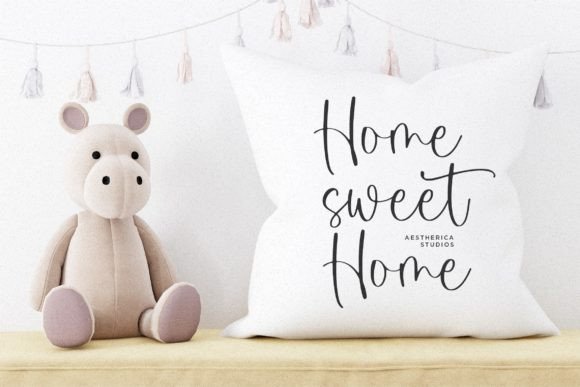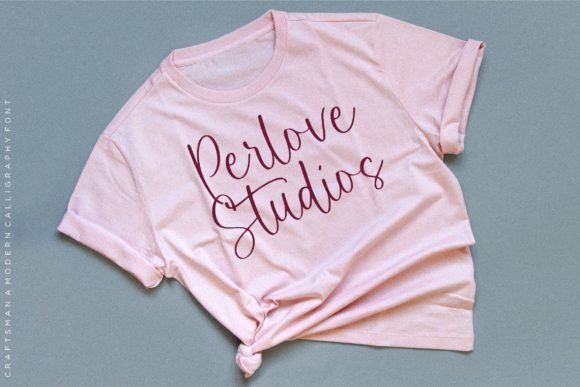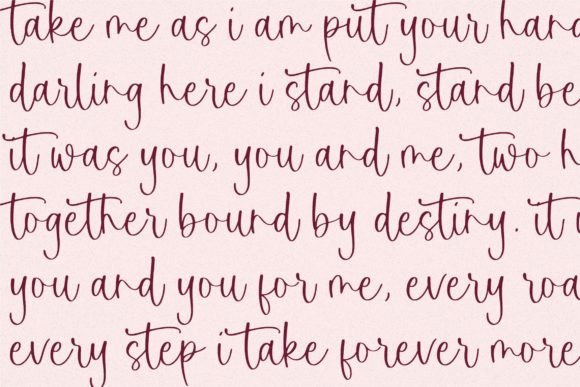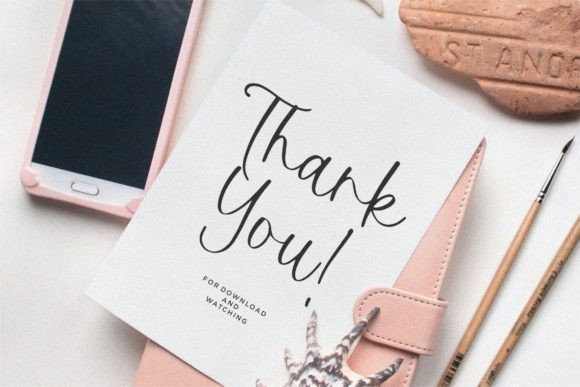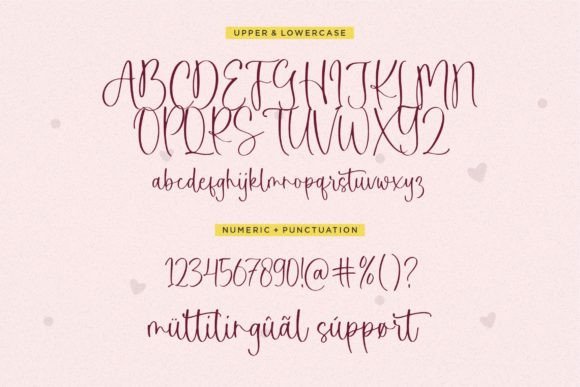
Craftsman Font: Elevate Your Designs with a Modern Handwritten Touch
In the world of typography, fonts play a crucial role in conveying messages, expressing emotions, and creating a lasting impression. For designers, crafters, and DIY enthusiasts, finding the perfect font can be a daunting task. However, if you’re looking for a modern handwritten font that can elevate your designs, look no further than Craftsman Font. In this article, we’ll explore the features, benefits, and uses of Craftsman Font, and why it’s becoming a favorite among designers and crafters.
What is Craftsman Font?
Craftsman Font is a modern handwritten font designed to bring a personal touch to your designs. Its unique, hand-crafted aesthetic makes it perfect for a variety of applications, from product packaging and branding projects to magazines, social media, and weddings. With its clean lines, elegant curves, and rustic charm, Craftsman Font is sure to add a touch of sophistication and whimsy to your designs.
Key Features of Craftsman Font
- Modern Handwritten Aesthetic: Craftsman Font boasts a fresh, modern look that’s both stylish and approachable.
- Highly Versatile: Use it for a wide range of applications, from digital projects to print materials.
- Elegant and Rustic: The font’s unique blend of elegance and rustic charm makes it perfect for designs that require a touch of sophistication and whimsy.
- Easy to Read: Craftsman Font is designed to be highly legible, making it perfect for body text, headings, and titles.
Uses of Craftsman Font
Craftsman Font is an incredibly versatile font that can be used in a variety of contexts. Here are some ideas to get you started:
- Product Packaging: Add a personal touch to your product packaging with Craftsman Font. It’s perfect for labels, tags, and branding materials.
- Branding Projects: Use Craftsman Font to create a unique and memorable brand identity. It’s perfect for logos, business cards, and letterheads.
- Magazines and Blogs: Add a touch of elegance and sophistication to your magazine or blog with Craftsman Font. It’s perfect for headings, titles, and body text.
- Social Media: Use Craftsman Font to create engaging and eye-catching social media graphics. It’s perfect for Instagram, Facebook, and Twitter.
- Weddings and Events: Craftsman Font is perfect for wedding invitations, save-the-dates, and event branding materials.
Why Choose Craftsman Font?
With so many fonts available, why choose Craftsman Font? Here are a few reasons why designers and crafters are falling in love with this modern handwritten font:
- Unique Aesthetic: Craftsman Font offers a unique and distinctive look that’s sure to set your designs apart.
- Highly Versatile: The font’s versatility makes it perfect for a wide range of applications and projects.
- Elegant and Rustic: Craftsman Font’s blend of elegance and rustic charm makes it perfect for designs that require a touch of sophistication and whimsy.
In conclusion, Craftsman Font is a modern handwritten font that’s perfect for designers, crafters, and DIY enthusiasts. Its unique aesthetic, versatility, and elegance make it an excellent choice for a wide range of applications. Whether you’re looking to add a personal touch to your product packaging, create a memorable brand identity, or simply add a touch of sophistication to your designs, Craftsman Font is an excellent choice. So why wait? Try Craftsman Font today and elevate your designs to the next level!